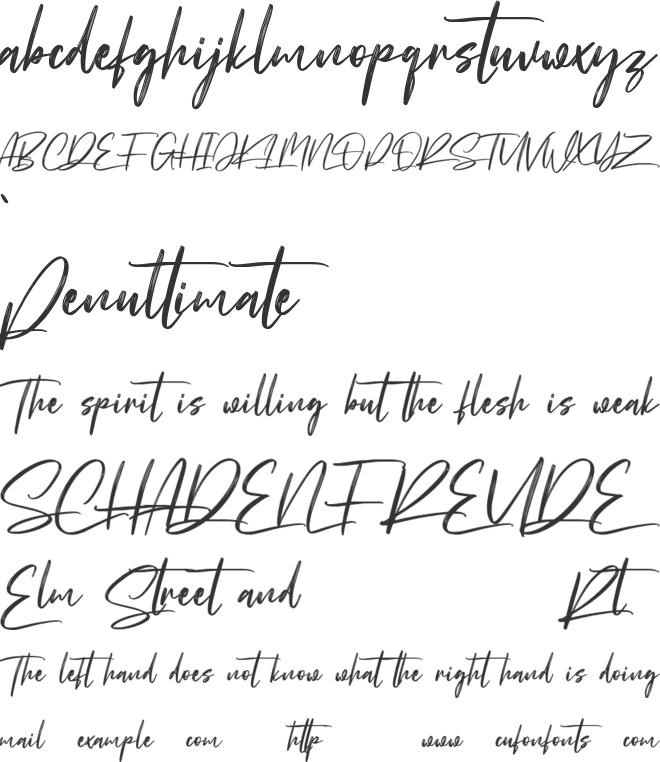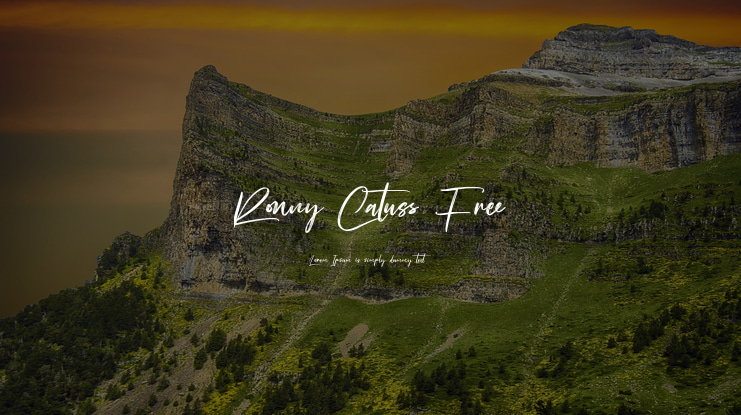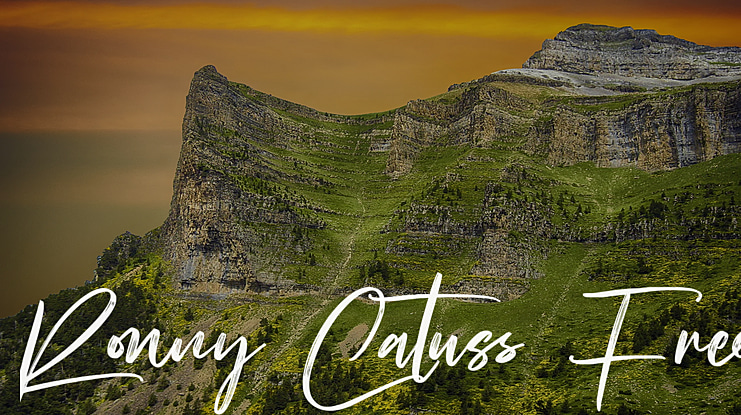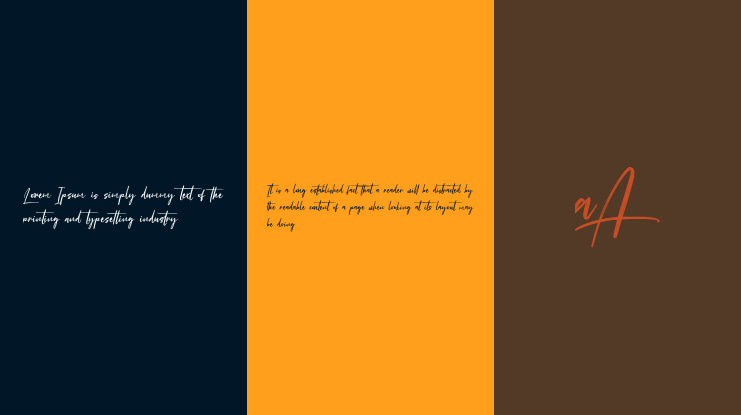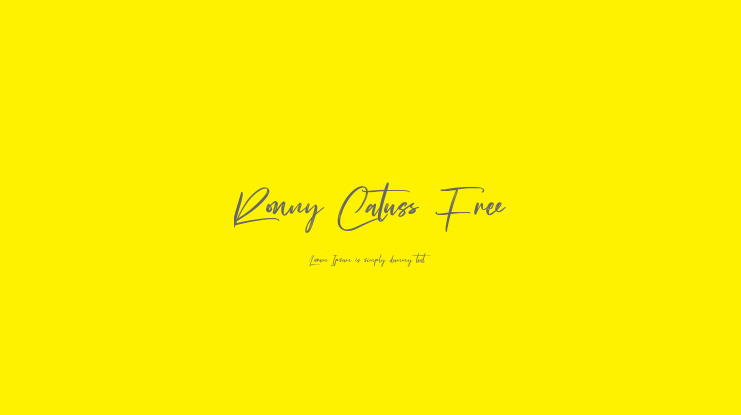
Ronny Catuss Free Font
This is a cool, brushed and trendy handwritten font that has a simple style & modern look. To give you an extra creative work. Ronny Catuss font support multilingual more than 100+ language. This font is good for logo design, Social media, Movie Titles, Books Titles, a short text even a long text letter and good for your secondary text font with sans or serif. Make a stunning work with Ronny Catuss font.